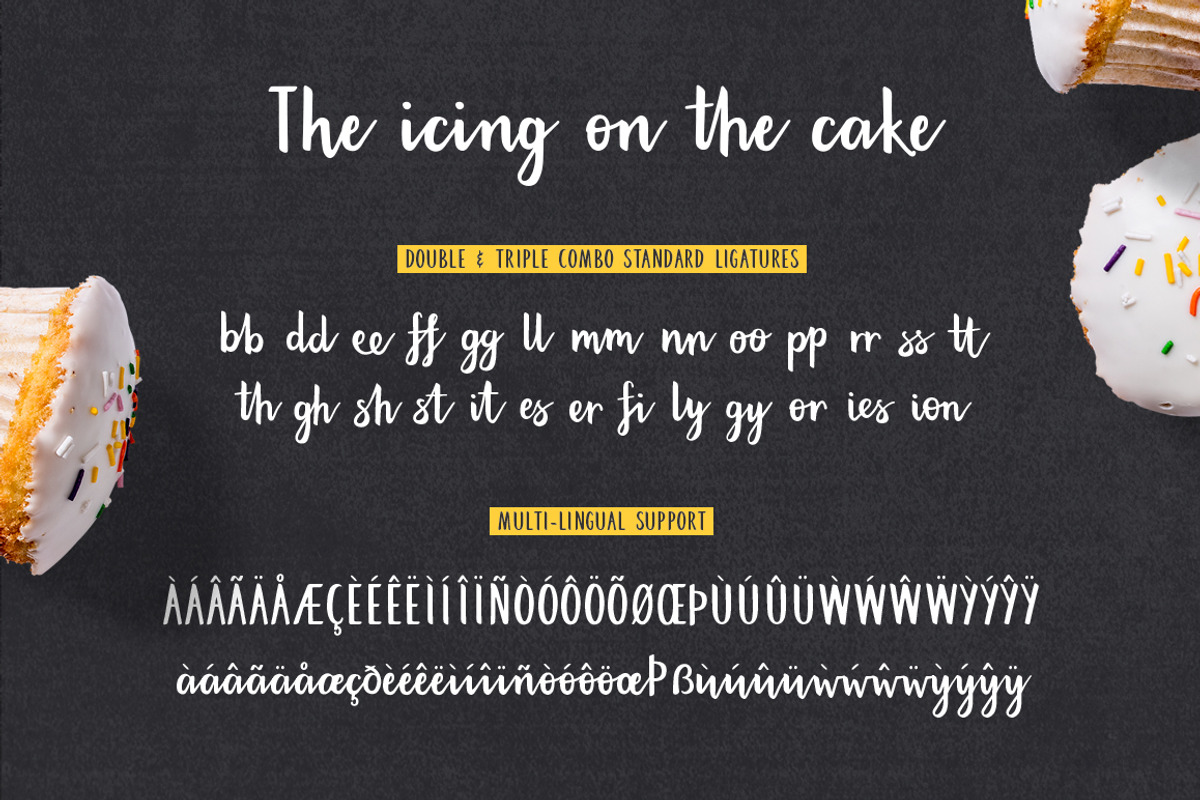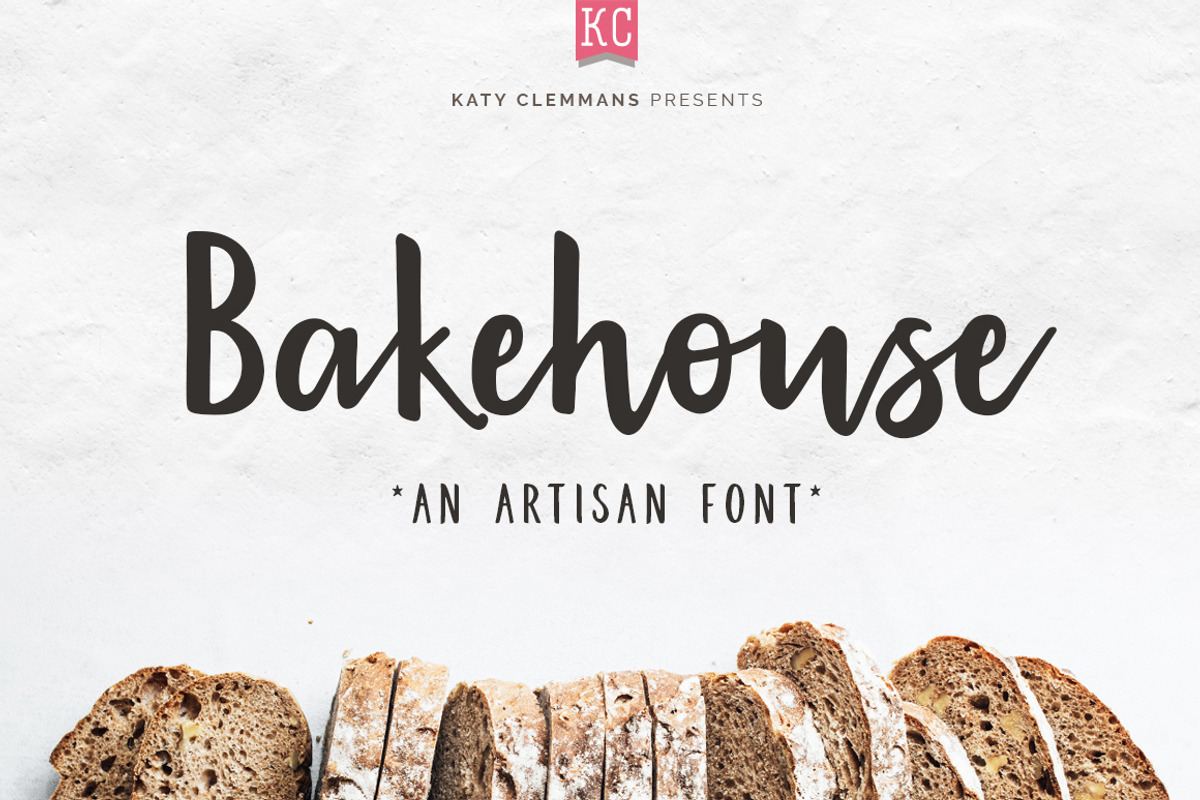
Bakehouse Script Font
Introducing Bakehouse, a handwritten script font from Katy Clemmans.
Give your projects a hand crafted feel with this beautiful font which mixes lowercase script characters with a contemporary uppercase to give you endless options for confident and eye-catching layouts.
Bakehouse has been built with Open Type features and standard ligatures (ensure your ligatures button is checked in your character panel), however a TrueType format is also supplied for use in programs which do not support OpenType fonts.
Bakehouse contains numbers, a large range of punctuation, and multilingual support with accented characters for international users.